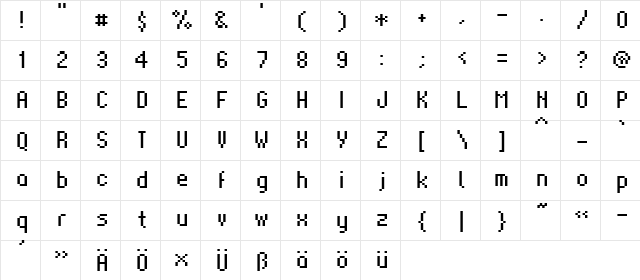
supernatural_10_02 Regular
Design Context for supernatural_10_02 Typeface
supernatural_10_02 offers clean, dependable letterforms without strong stylistic allegiance, making it a practical choice for designers who need flexibility.